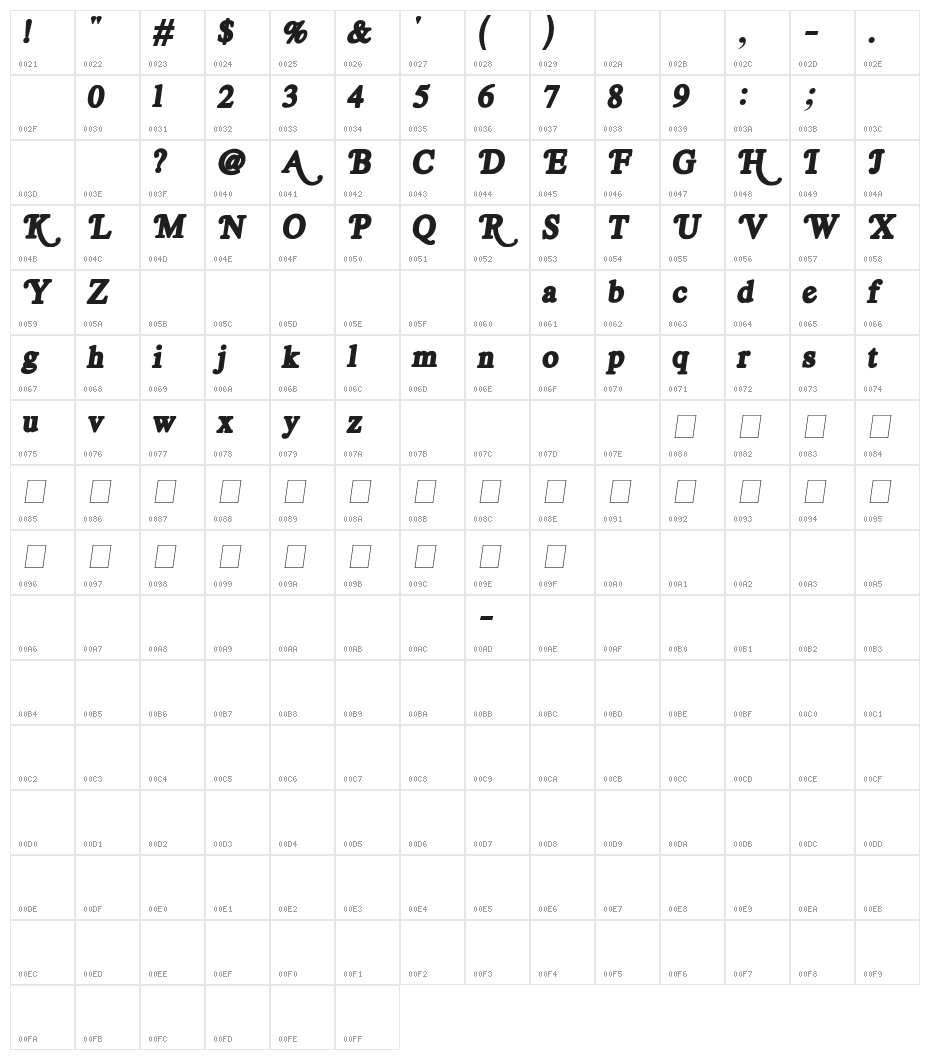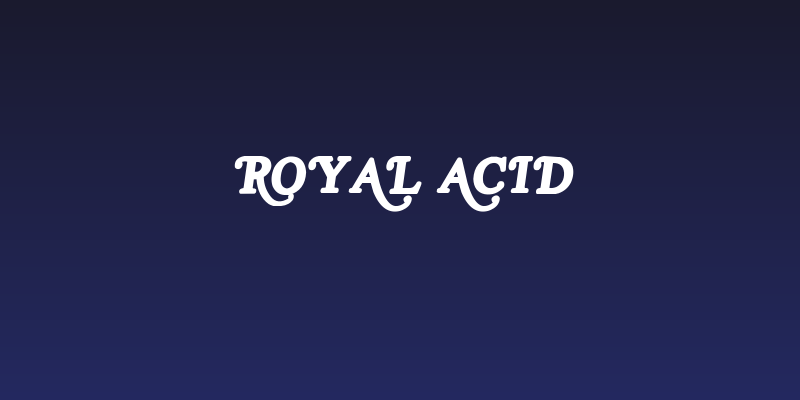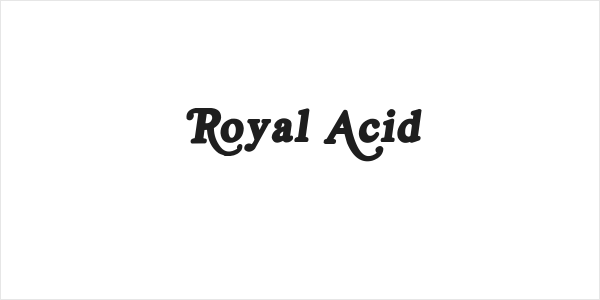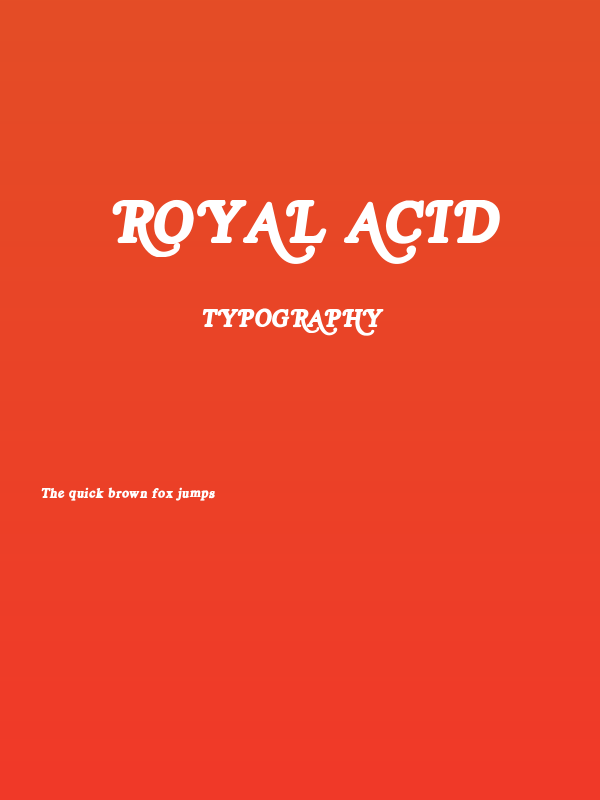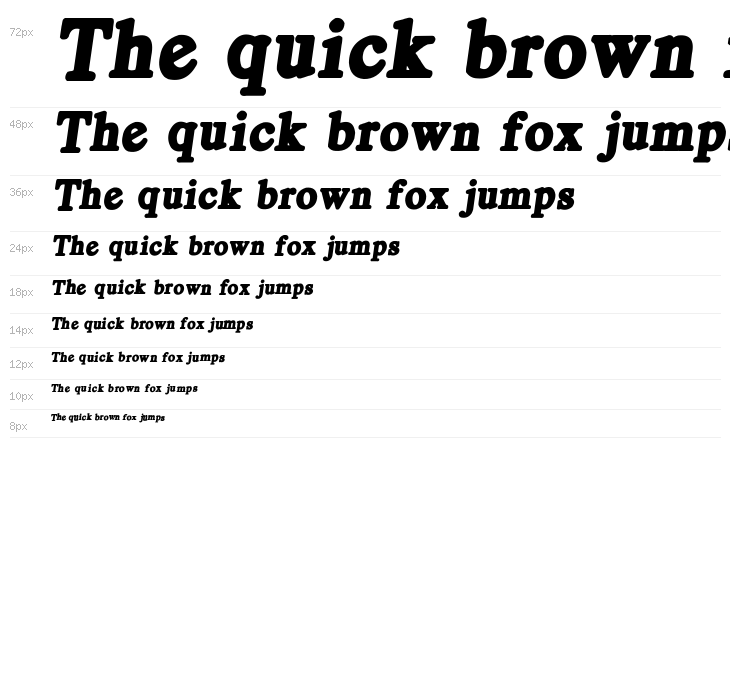
Royal Acid Font
Royal Acid Description
This font features a bold and decorative style with a distinct flair. The uppercase letters are characterized by their thick strokes and unique serifs that add a touch of elegance and drama. The lowercase letters maintain a consistent boldness, ensuring readability while still offering a decorative appeal. Numbers and special characters are crafted with the same attention to detail, making them stand out. The overall design is reminiscent of vintage signage, with a modern twist that makes it suitable for various creative applications.
| Proposed Projects | Ideal for branding, poster design, headlines, and any project requiring a bold, eye-catching typeface. |